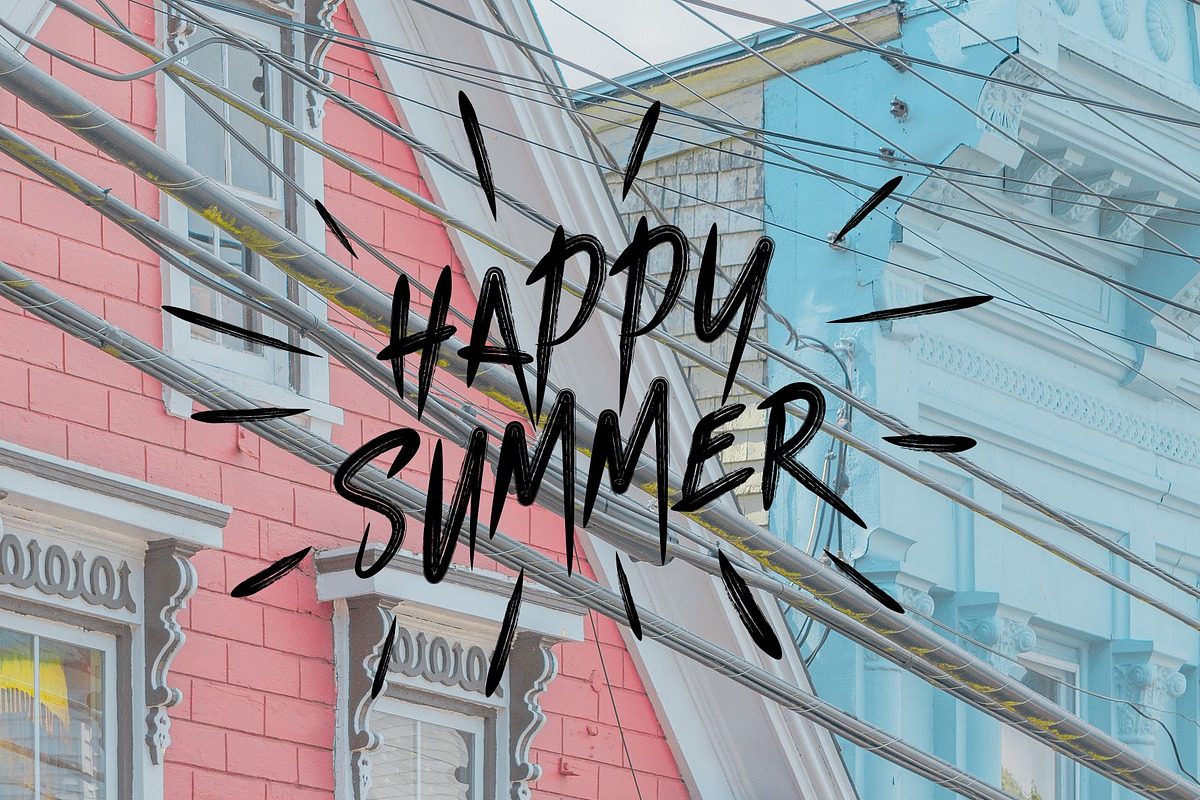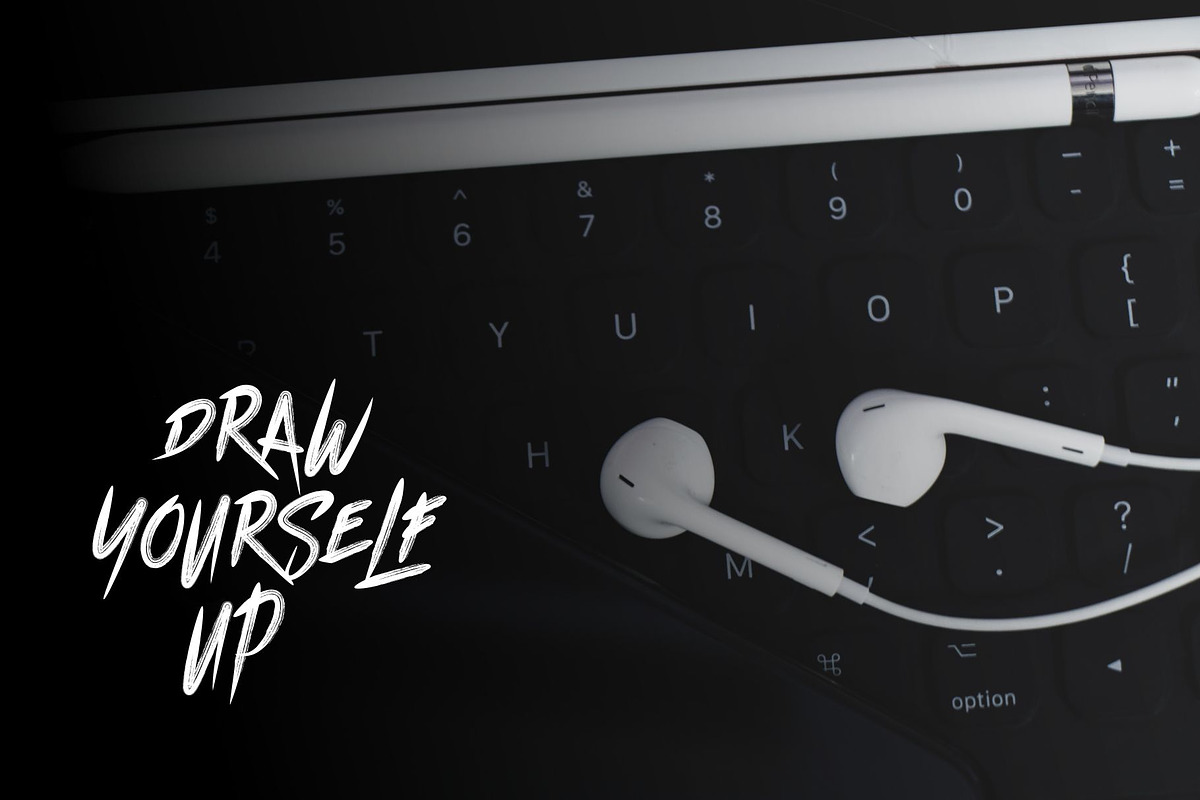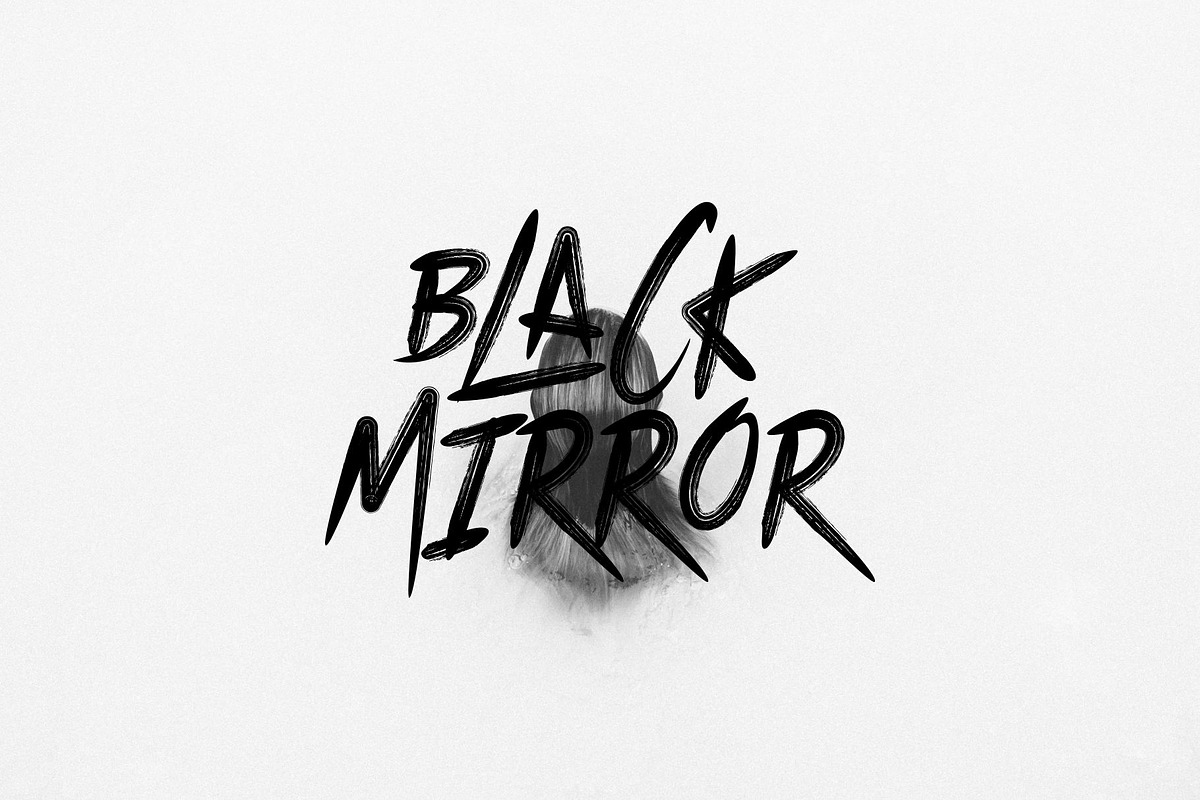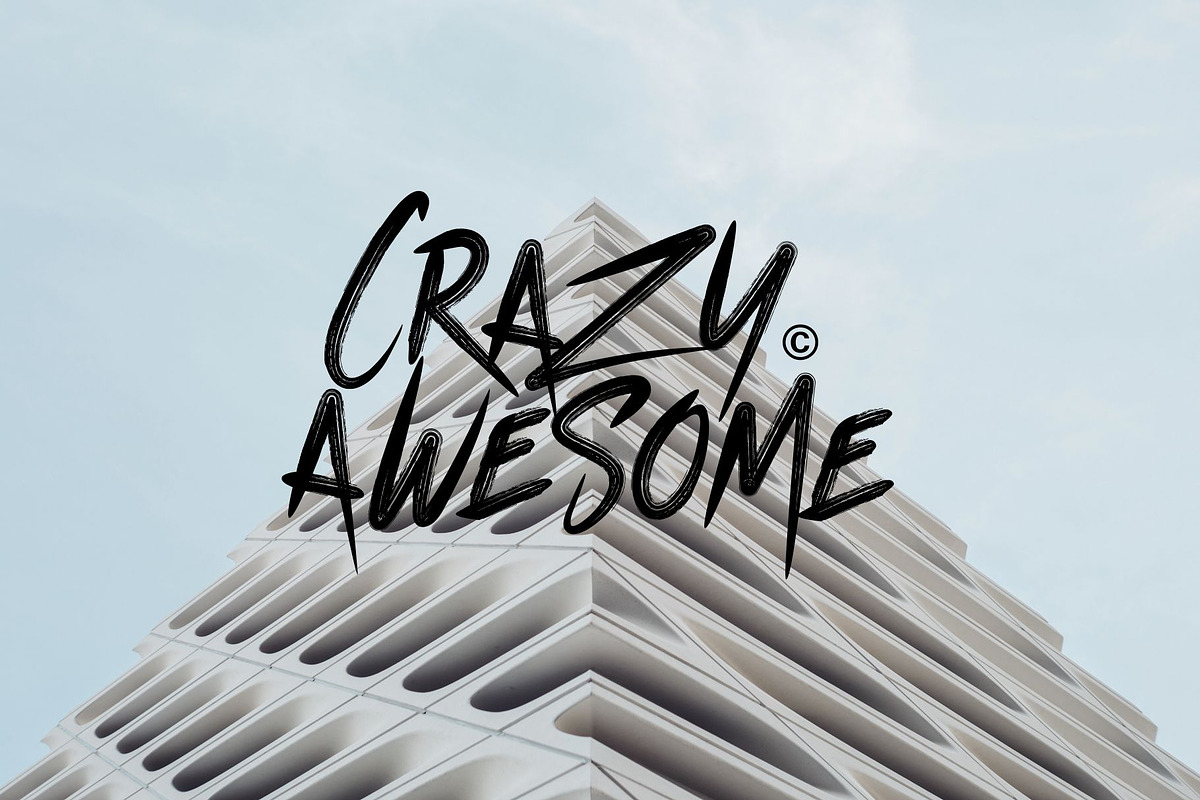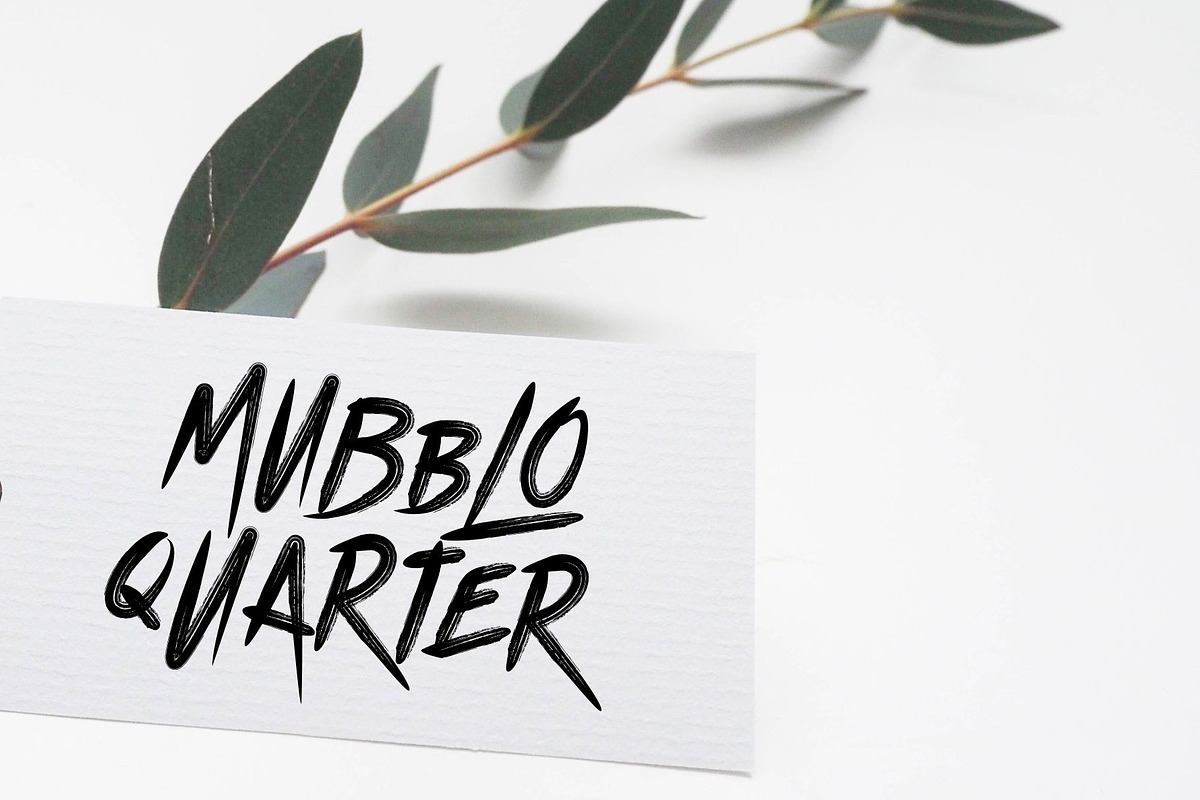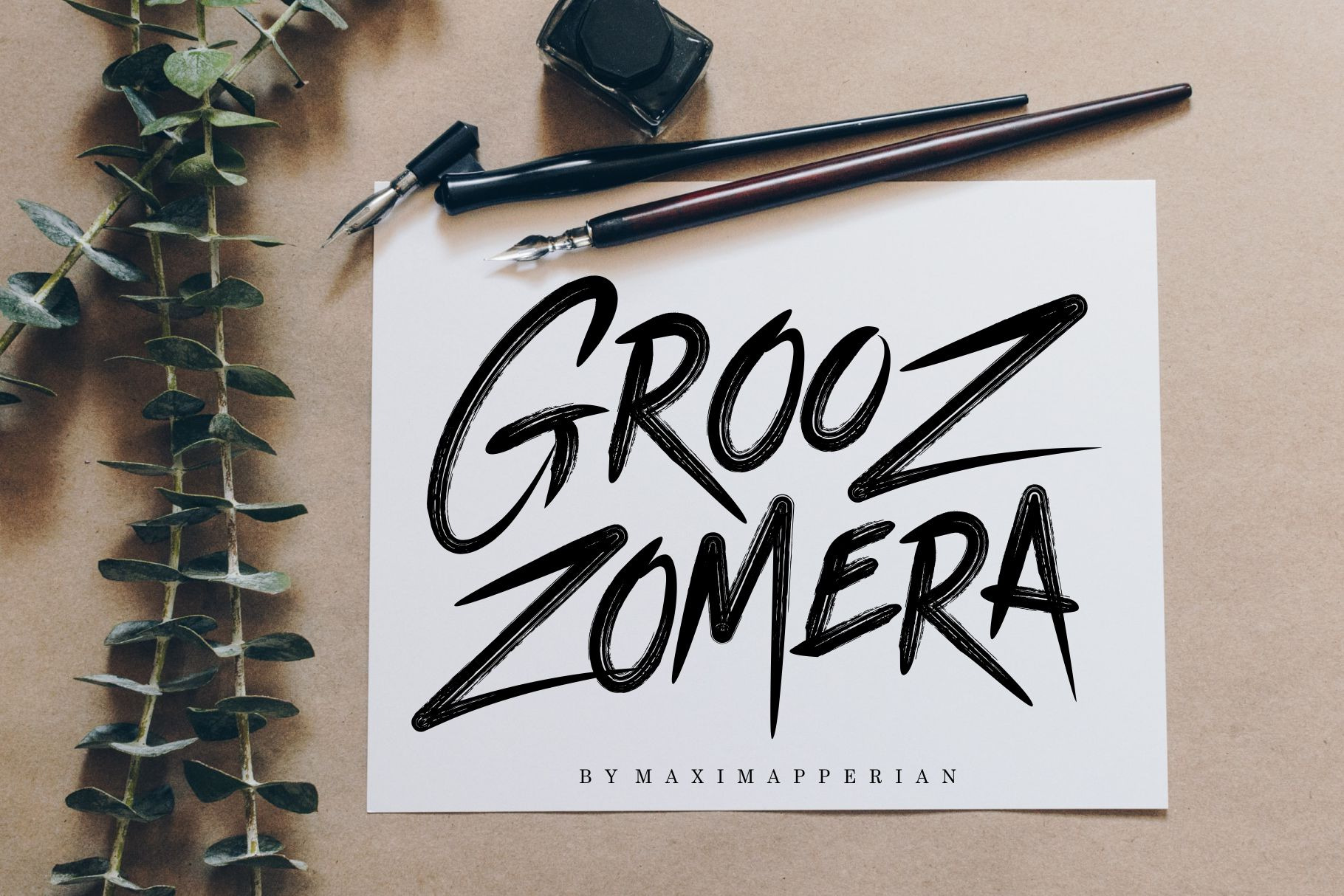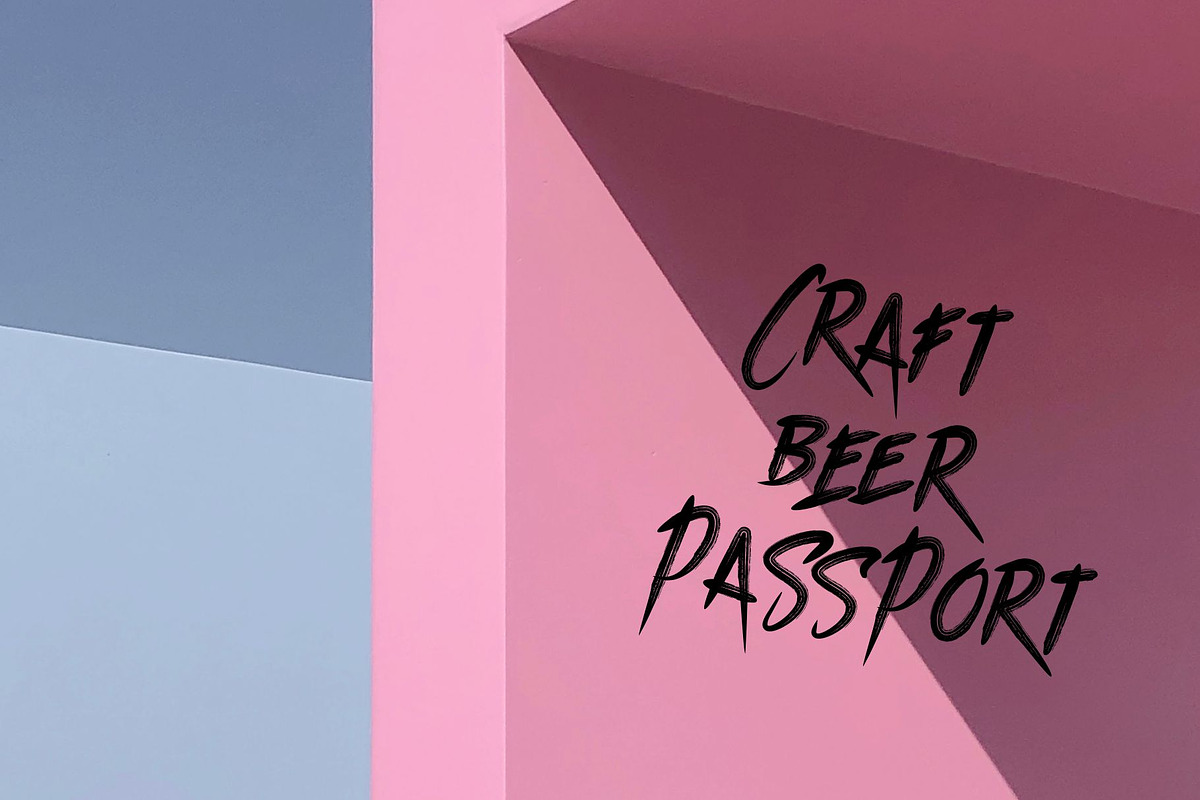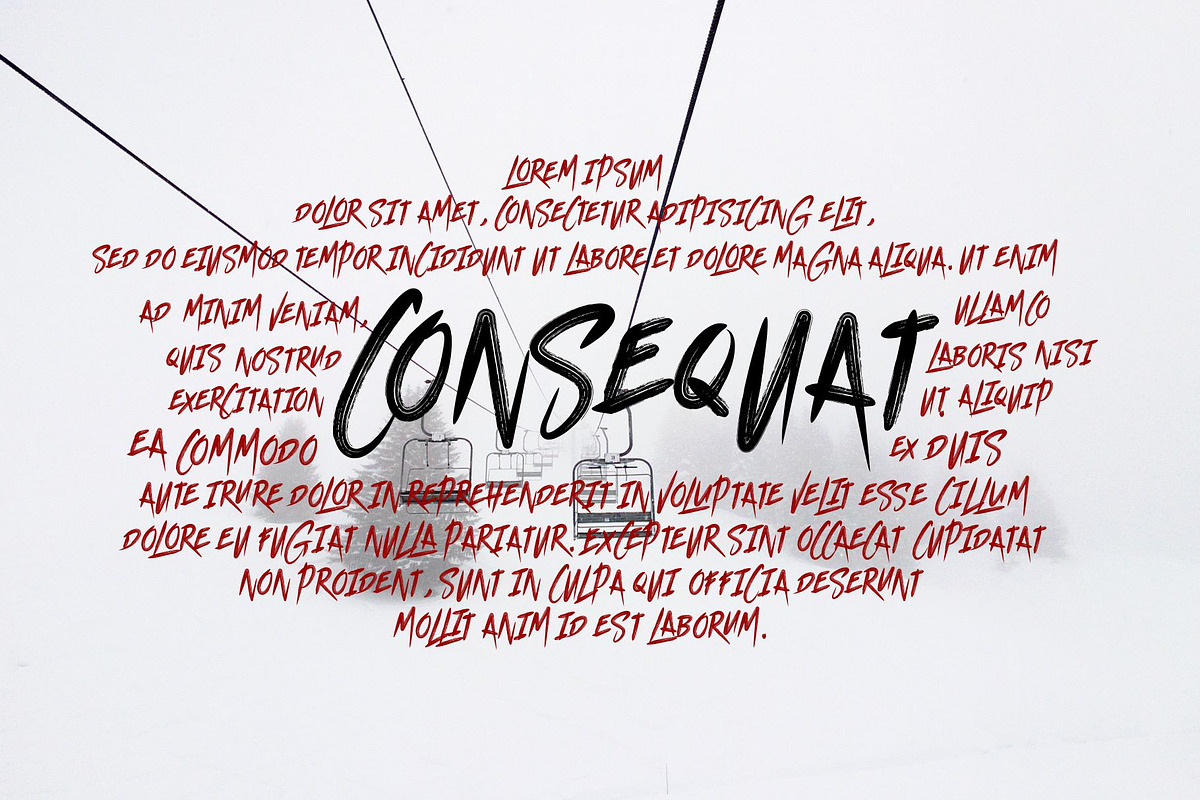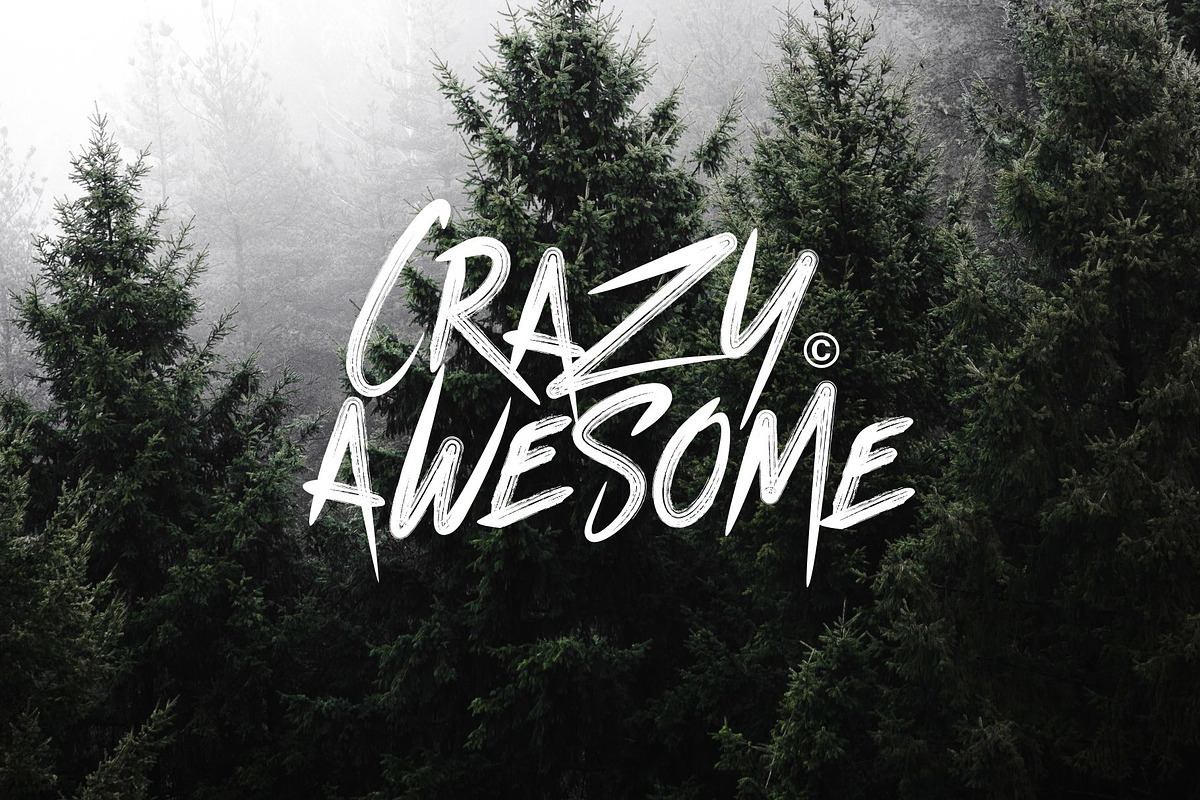
Grooz Zomera Brush Font
DETAILS Give your designs an authentic handcrafted feel. “ Grooz Zomera Brush Font” is perfectly suited to stationery, business card, logos and much more